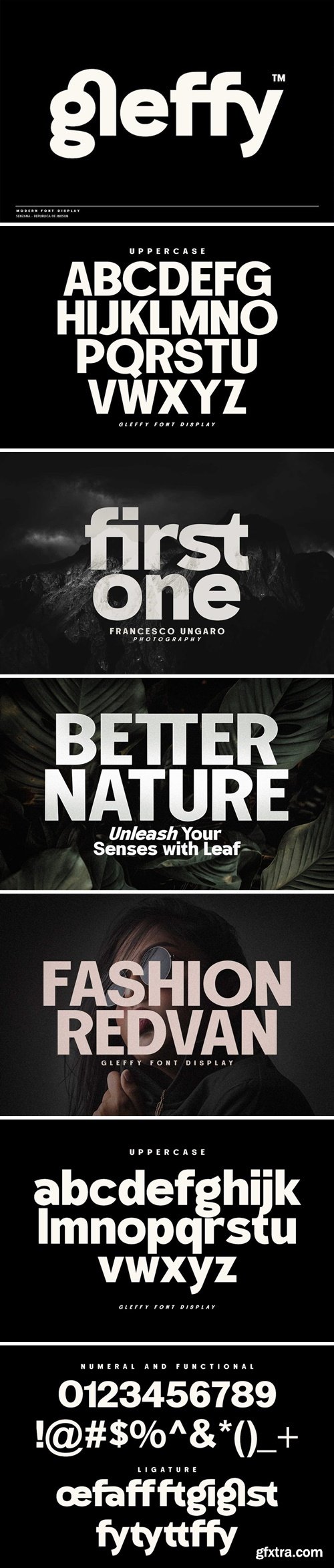
格莱佛字体
Elevate your designs and captivate your audience with the enchanting Gleffy Font, a typographic masterpiece that strikes the perfect balance between elegance and versatility. With its exquisite curves, meticulous detailing, and timeless appeal, Gleffy Font is the ultimate choice for designers, creatives, and typographers seeking to make a lasting impression.